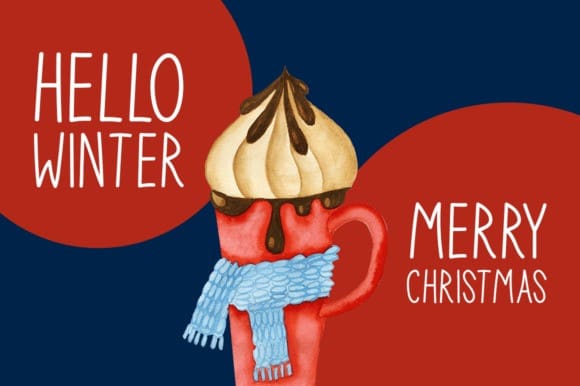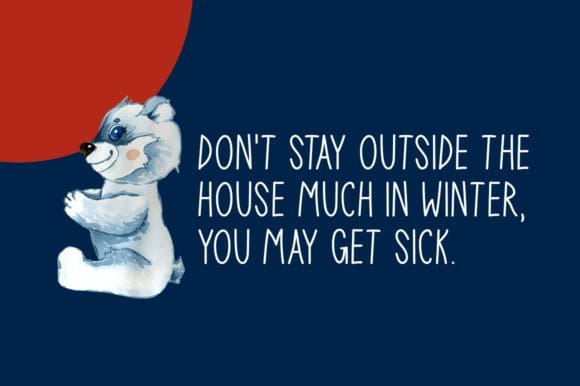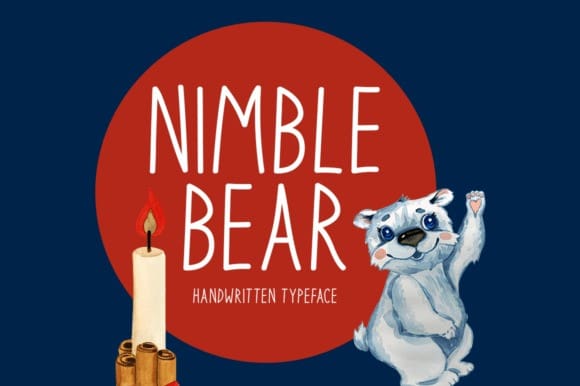
Nimble Bear Font
Nimble Bear Font is a simple lettered handwritten font. It can easily be matched to an incredibly large set of projects, so add it to your creative ideas and notice how it makes them stand out!